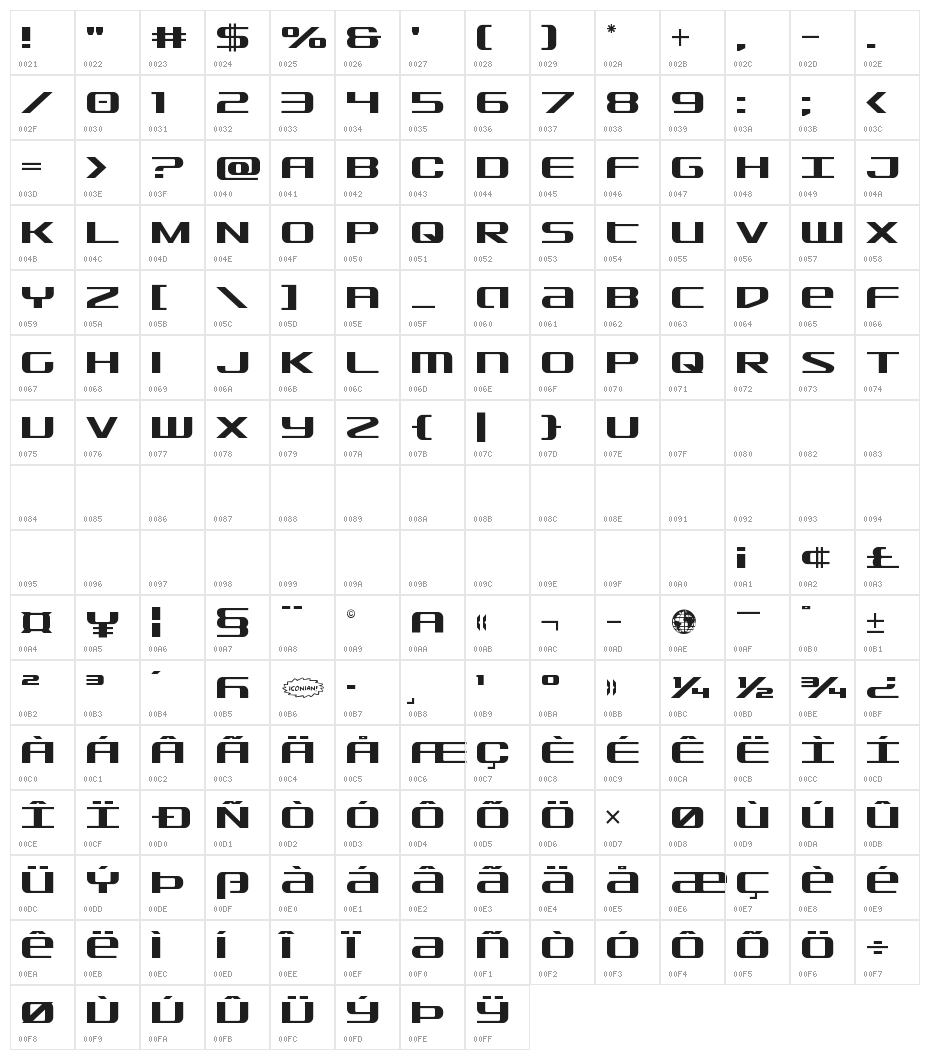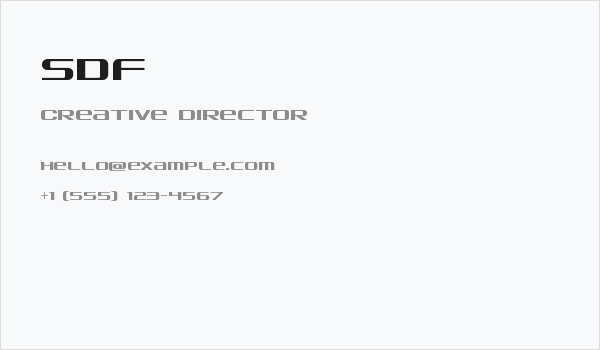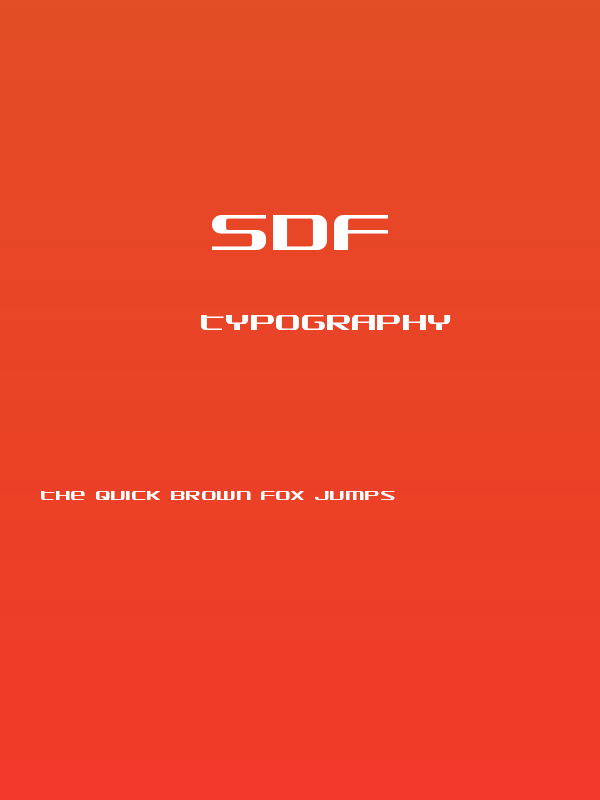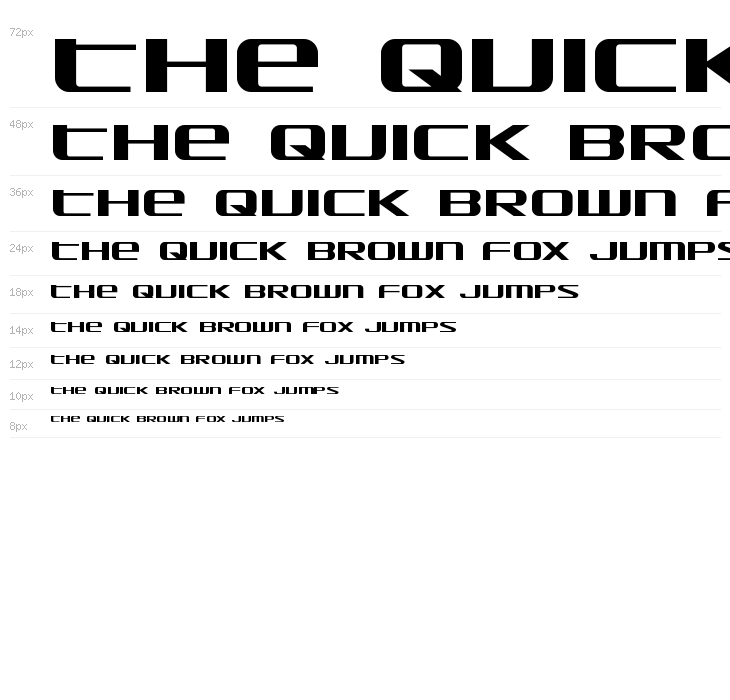
SDF Font
SDF Description
This font exhibits a futuristic and geometric style, characterized by its bold and angular letterforms. The uppercase and lowercase letters maintain a consistent width, giving it a monospaced appearance, although it is not strictly monospaced. The characters are designed with sharp edges and a slightly condensed form, which enhances its modern and sleek aesthetic. The numbers and special characters follow the same design principles, ensuring uniformity across the font. Its distinct style makes it suitable for projects that require a contemporary and tech-savvy look.
Proposed ProjectsIdeal for technology branding, sci-fi themed designs, video game interfaces, and modern advertising.